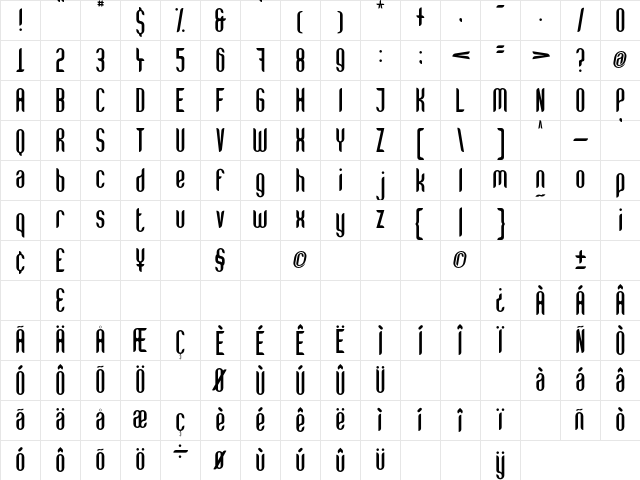
Lo-Fi Regular
Design Context for Lo-Fi
Lo-Fi is a composed and adaptable typeface that performs quietly and consistently across a wide range of design contexts.